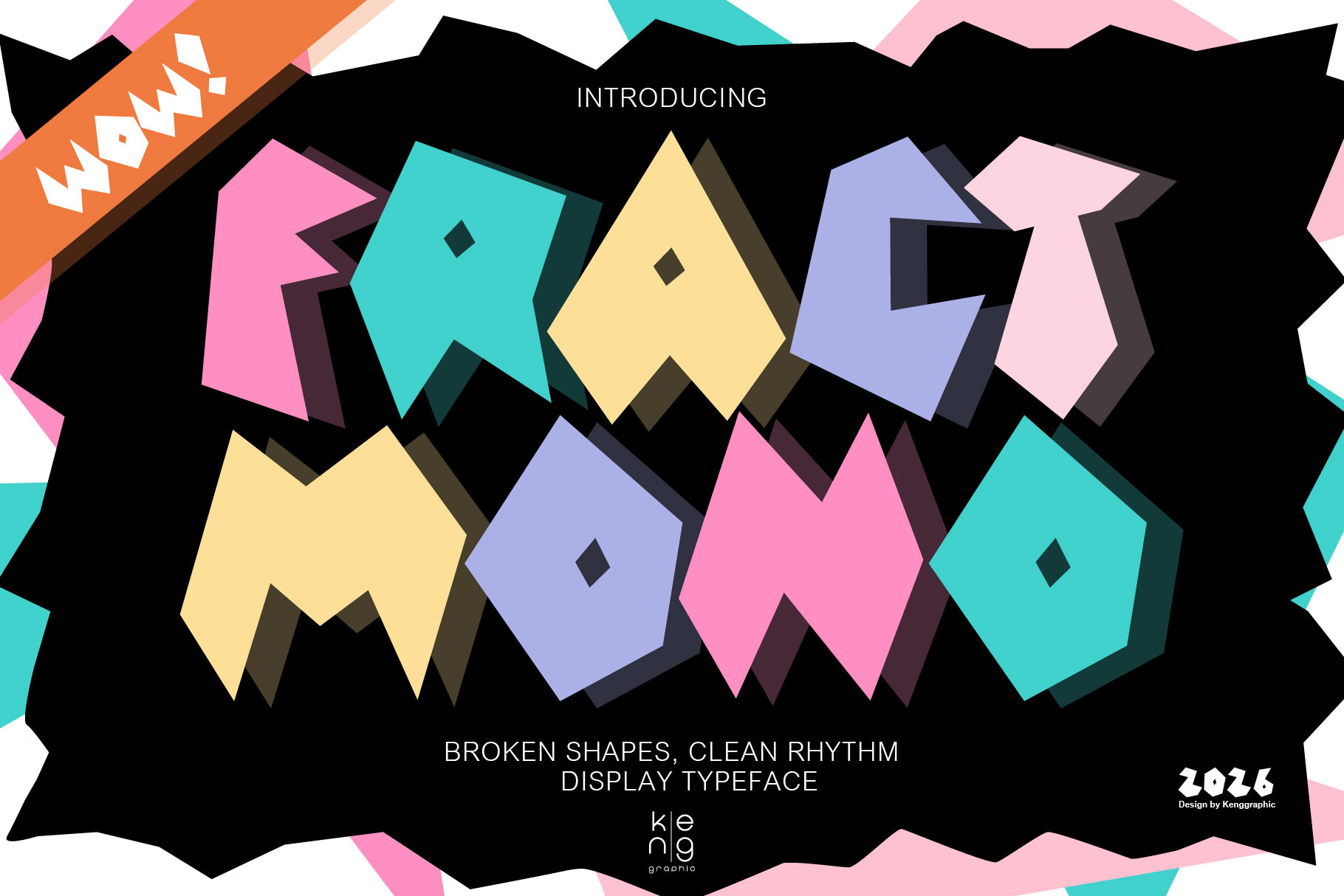
Fract Mono Font
Fract Mono is a display typeface built from fractured, angular forms. Each letter carries intentional breaks and sharp edges, creating a raw yet controlled visual rhythm.
Imperfect by design, but balanced in structure, Fract Mono delivers a bold, edgy personality that stands out in modern layouts.
Perfect for posters, logos, branding, and social media, this typeface is made to break the norm and define a new visual voice.